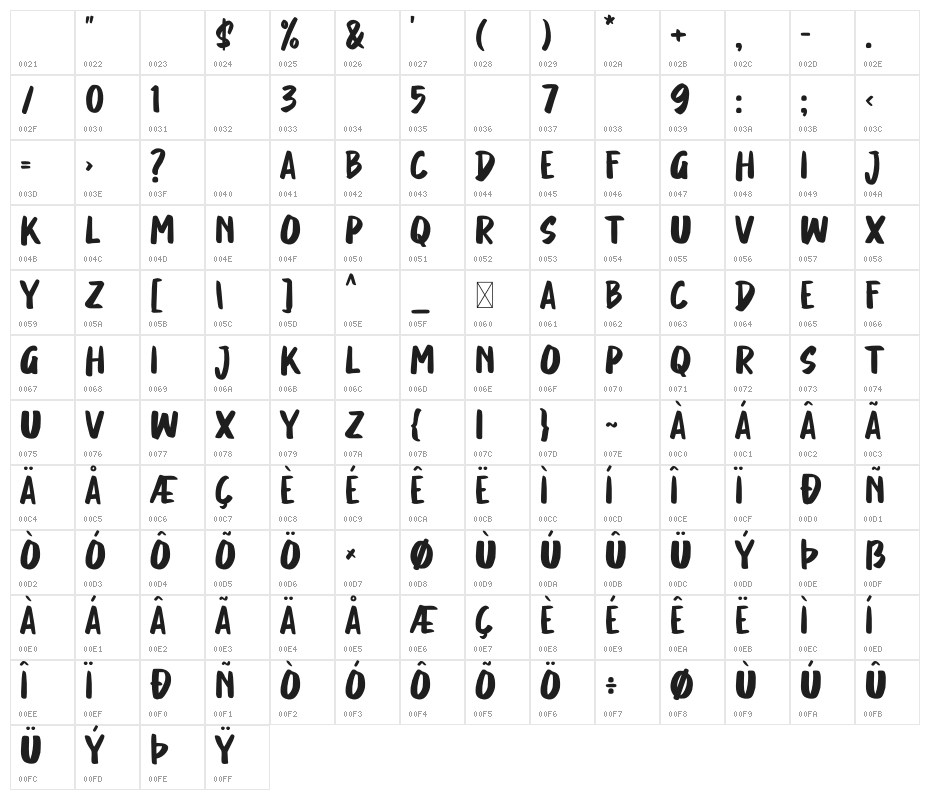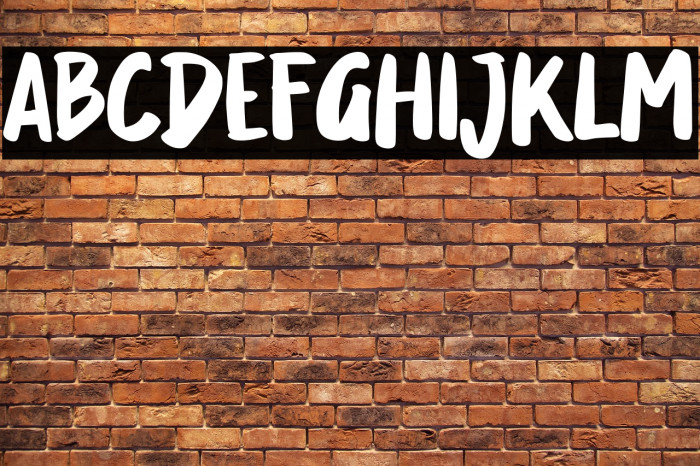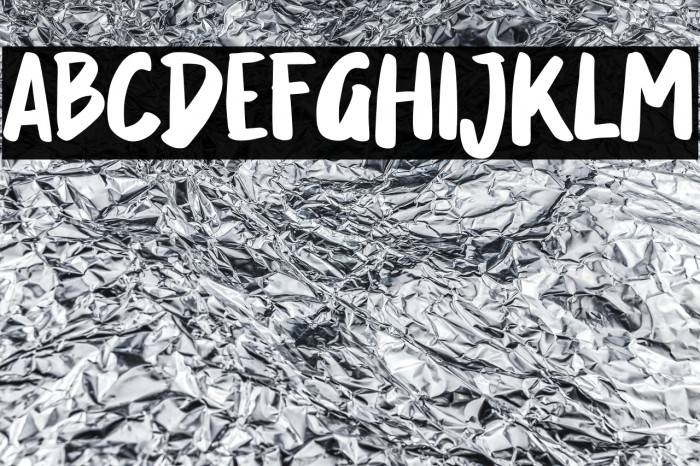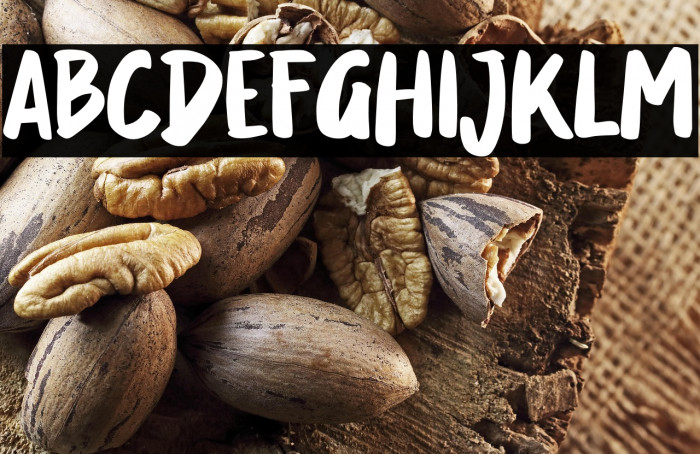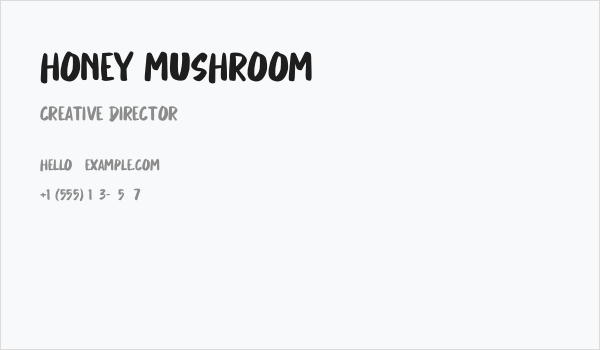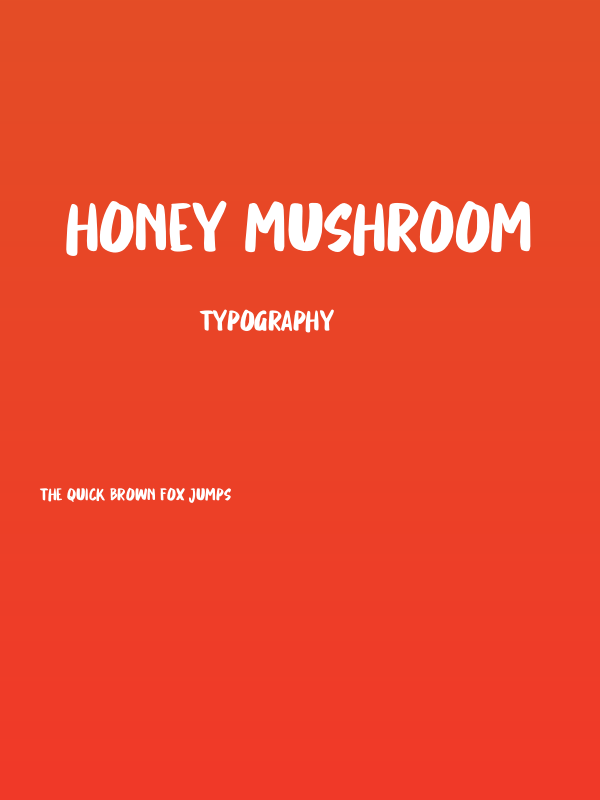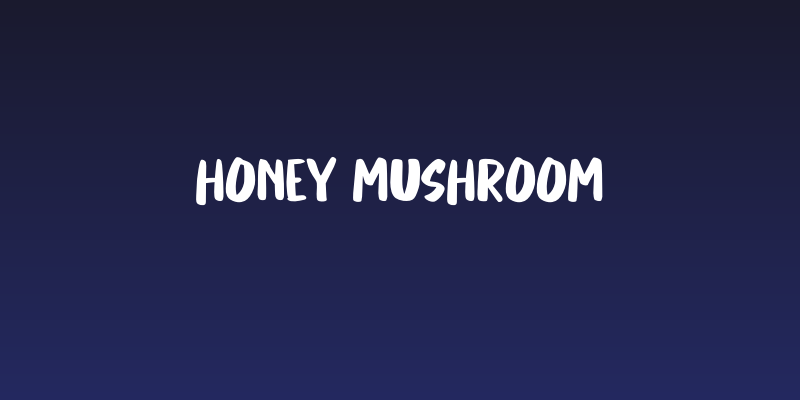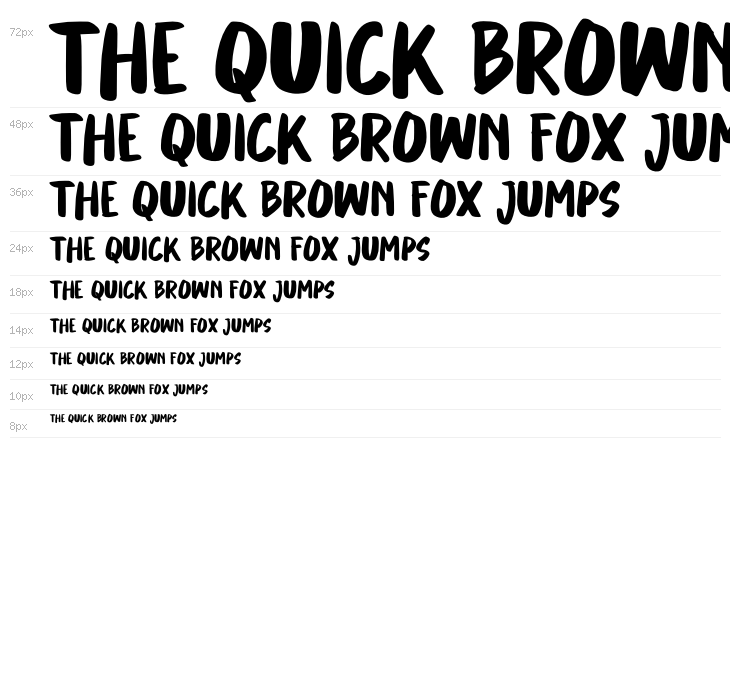
Honey Mushroom Font
Honey Mushroom Description
This font features a bold and playful handwritten style, characterized by its thick strokes and rounded edges. The letters are slightly irregular, giving it a casual and friendly appearance. The uppercase and lowercase letters maintain a consistent style, with a slight slant that adds to its dynamic look. The numbers and special characters are designed to match the overall aesthetic, ensuring a cohesive appearance across all glyphs. This font is ideal for projects that require a personal touch, such as invitations, posters, or branding materials that aim to convey warmth and approachability.
| Overall Style | Playful, Casual |
| Proposed Projects | Ideal for invitations, posters, branding materials, and any project needing a personal, friendly touch. |